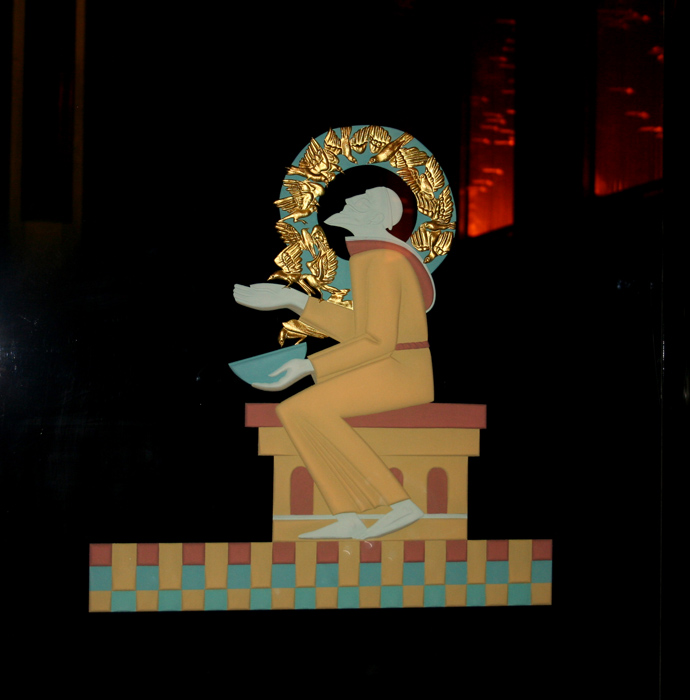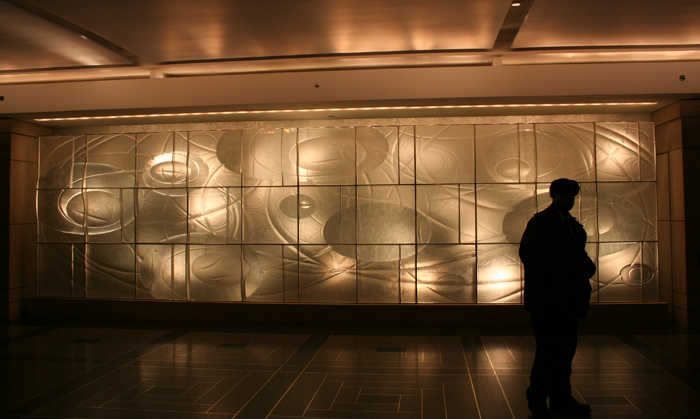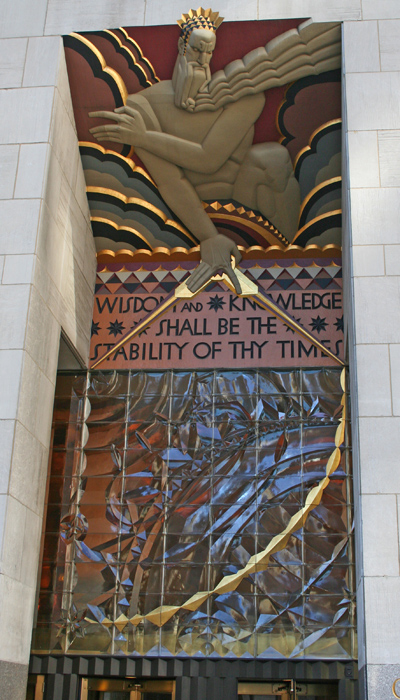
I have been asked to help a friend move to New York City.
And I figured as long as I am there, I would do some site seeing.
I would like to limit the Site Seeing to Sign Related Matters.
So I ask of you all what is there to see and do in New York City when it comes to those concerns.
I have never been there myself, but I have a list of things I would want to do.
First would be the MET. To see the work of Jean Dupas. He did the huge art deco glass murals that were on the cruise ship "Normandie".
But the absolute "must do", is a nearby trip to the Corning Museum of glass. You will find some extraordinary examples of historic examples of our art, as well as visit the Rakow library. It has the most extensive collection of literature to do with glass, and you can find lots of info on painting and gilding of glass. Going all the way back to Roman era glass, through European history, up to modern day. Search for terms such as "verre églomisé", zwischengoldglass, "reverse painting", "reverse gilding".
While you're there, grab a copy of "Reverse paintings on glass: The Ryser Collection", which featured at the Corning several years ago and is a beautiful book showing this amazing collection. In fact you can buy it online, and I'd encourage anyone to get it.
I've been wanting to spend a few days studying in that library for years, but it always seems a dream that is just out of reach.
I currently have 2 sons living in NYC and I’m due for a visit. I hope you'll fall in love with the city as I've done.
An absolute MUST SEE is the Rockefeller Center. I could spend days wandering around the several buildings located within the few square blocks of that project. Not only the glass work – carved, gilded, architectural slumped glass, etc. – but the murals, sculptures, bas-relief, terra cotta, fixtures, layout, everything about the place is an opulent pinnacle of Art Deco style. Located in mid-town Manhattan it is a central fixture in the city and will not disappoint. I'll attach a few of the photos I took in 2006. Also, if you like Art Deco, don’t miss the Empire State Building, the Channin Building and the Chrysler Building.
China Town has gold leaf on the windows everywhere but by and large, in NYC, apart from the excellent work done at the art deco buildings, I was quite disappointed in most of the window gilding I saw. For the most part it seemed to be executed rather sloppily and without much imagination.
I’ll take note of Bruce's recommendation to see the Corning Museum as I plan to go for a visit sometime this year. With you, I'll take any recommendations. Share some photos when you return if you think of it.
- Entry to the GE building
- Downstairs in the GE building
- Sand-carved, painted & gilded glass inside the GE building